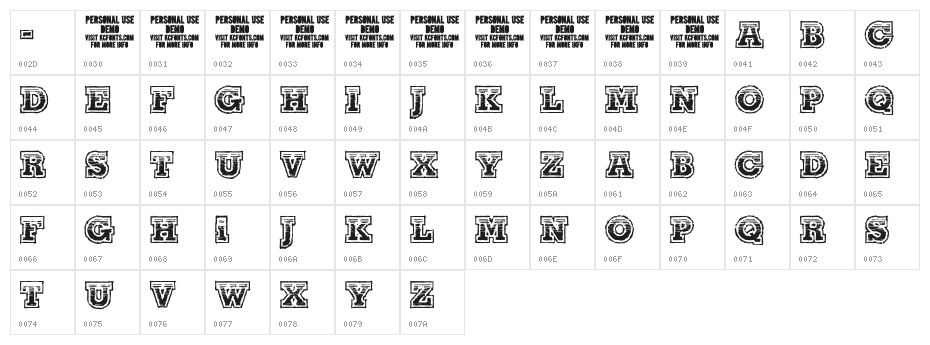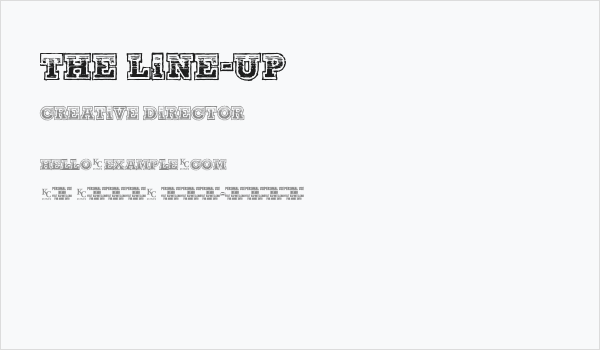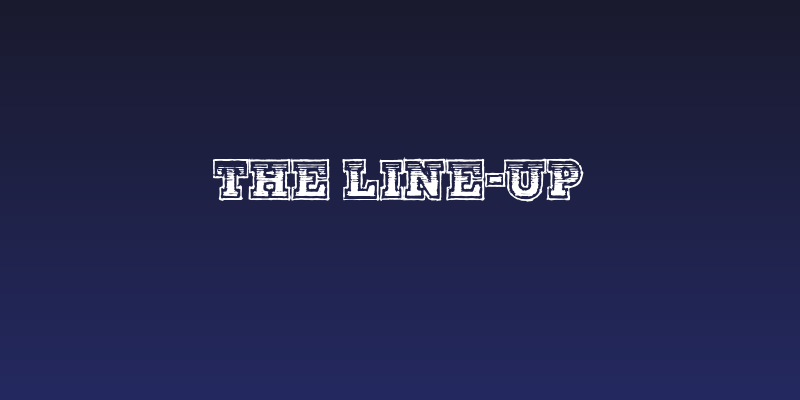
The Line-Up Font
The Line-Up Description
This font features a bold, decorative style with a distinct outline and shadow effect, giving it a three-dimensional appearance. The characters are uppercase and exhibit a rugged, textured look, reminiscent of vintage poster fonts. The design includes intricate detailing within each letter, adding to its visual complexity and appeal. The font's boldness and unique style make it stand out, suitable for eye-catching designs. Its decorative nature suggests a playful yet strong presence, ideal for projects requiring a touch of nostalgia or a bold statement.
| Overall Style | Vintage |
| Proposed Projects | Ideal for posters, headlines, branding, and any design needing a bold, vintage touch. |